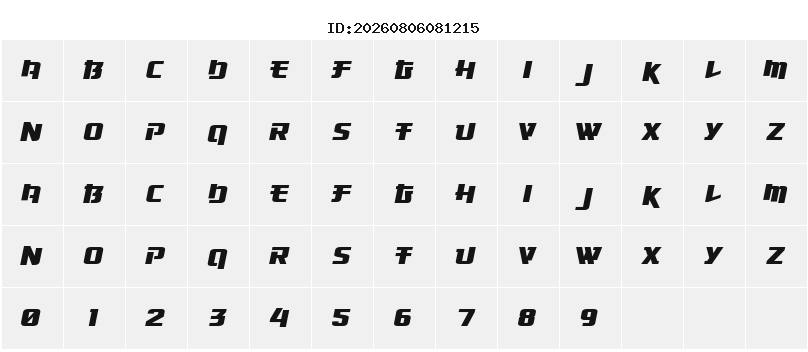
• Font Name: Osaka-Sans Serif
• Full Font Name: Osaka-Sans Serif
About Osaka-Sans Serif.ttf
Osaka-Sans Serif.ttf is a modern, elegant sans-serif font designed for ultimate readability and visual harmony. Perfect for branding, headlines, web design, and print materials.